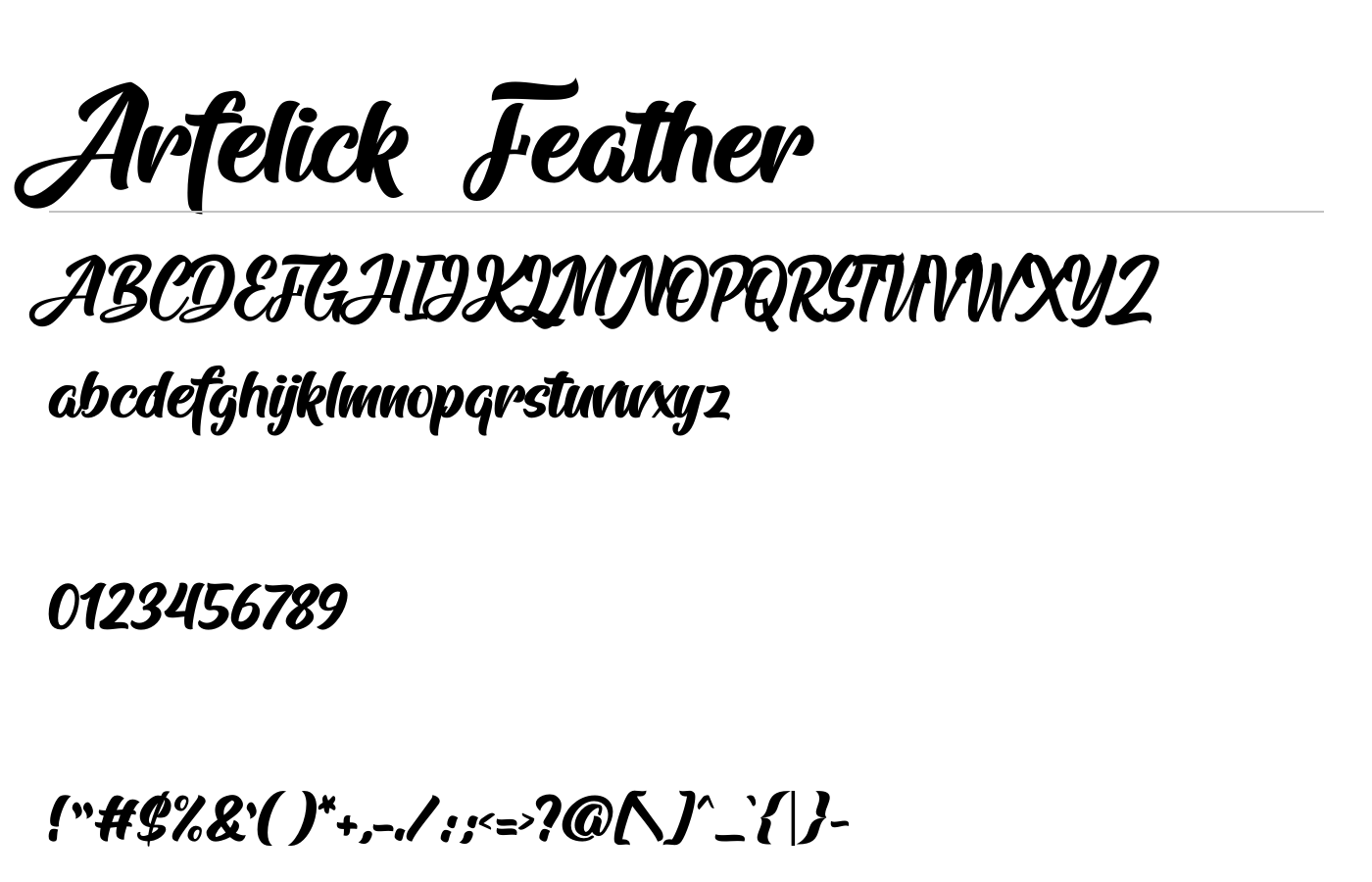
Arfelick Feather is a bold, elegant script font with a smooth, flowing style that combines modern sophistication with a touch of vintage charm. Its slightly condensed letterforms and high contrast strokes make it perfect for eye-catching headlines, logos, and branding that require a stylish, luxurious feel. This font shines in fashion, invitations, and editorial designs where a personal, handwritten touch is desired.
Arfelick Feather Font
About Arfelick Feather Font
| Font family | Arfelick Feather Font |
| Designer | Riyadh Rahman |